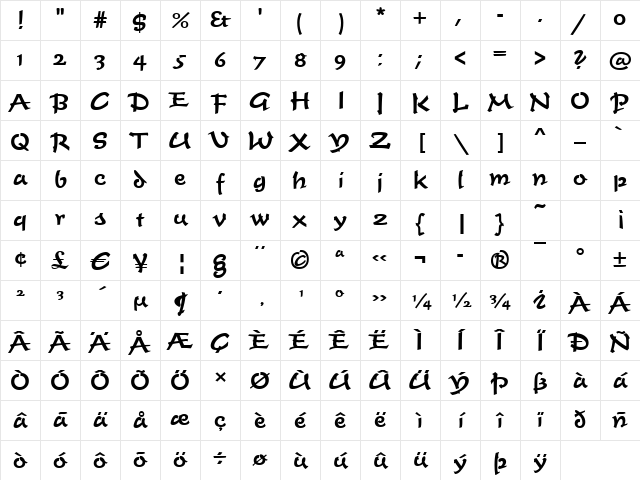
TiogaScript-Medium Regular
Foundry: SoftMaker Software GmbH
Designer: SoftMaker Software GmbH
Design Context for TiogaScript-Medium
TiogaScript-Medium flows with the natural rhythm of handwritten lettering, making it ideal for designs that call for warmth and personal expression.
Font Pairing: Combine TiogaScript-Medium with a simple geometric sans for maximum contrast - the tension between flowing curves and clean structure is a classic typographic pairing.
Pro Tip: Use TiogaScript-Medium for short runs of text - names, titles, or taglines. Extended body copy in script faces tires the eye quickly.